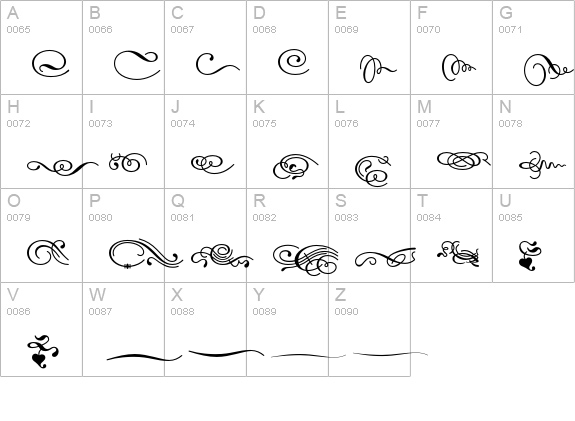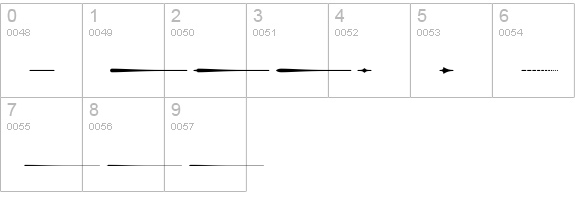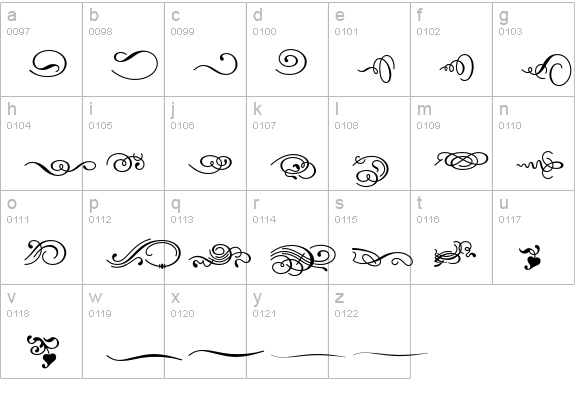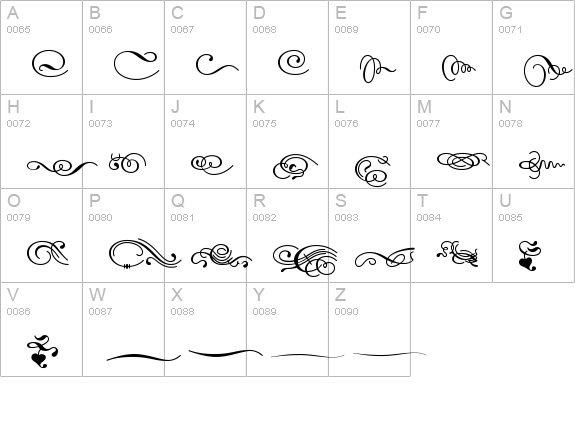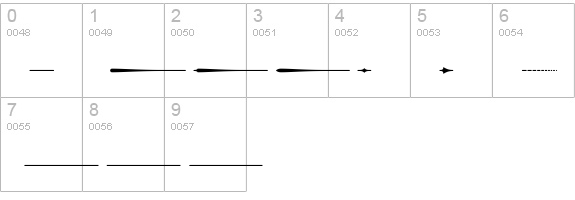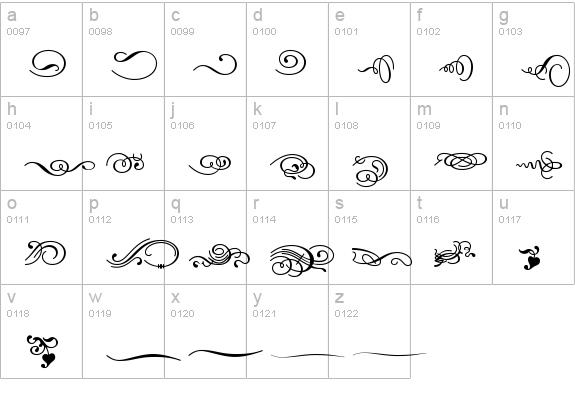
DallianceFlourishes font is a stunning display typeface that exudes elegance and sophistication. With its intricate and ornate flourishes, this font is perfect for adding a touch of luxury to any design project. Each letter is meticulously crafted with delicate curves and graceful swashes, creating a visually captivating aesthetic. This font is not only visually appealing but also highly versatile. Whether you're designing wedding invitations, luxury branding, or editorial layouts, DallianceFlourishes font will effortlessly elevate your designs to new heights. Its unique and intricate details make every word feel like a work of art. One of the best things about DallianceFlourishes font is that it is free. That's right, this exceptional font is freely available to download at FontsMarket.com. You can access this font without any cost, making it an invaluable asset for designers on a budget or those who simply appreciate high-quality resources without breaking the bank. Downloading DallianceFlourishes font from FontsMarket.com is quick and easy. Simply navigate to the website, search for the font, and click on the download button. Within moments, you'll have access to this beautiful font, ready to enhance your designs and leave a lasting impression. Don't miss out on the opportunity to add DallianceFlourishes font to your collection. With its exquisite details, versatile nature, and the fact that it's free to download, this font is a must-have for any designer looking to create visually stunning and impactful designs. Get your hands on DallianceFlourishes font today and let your creativity flourish.